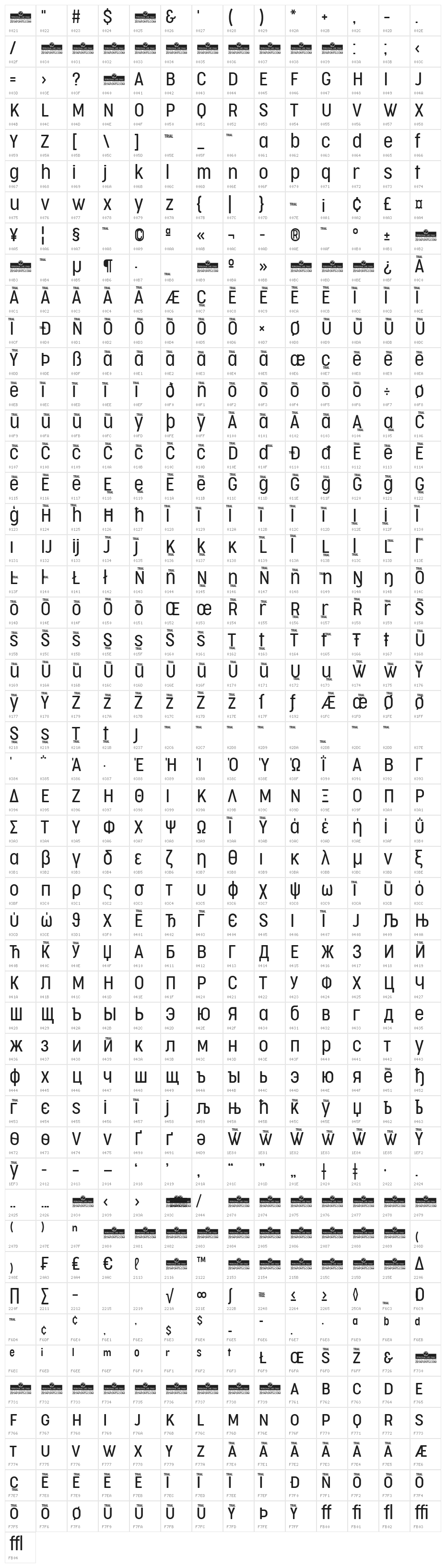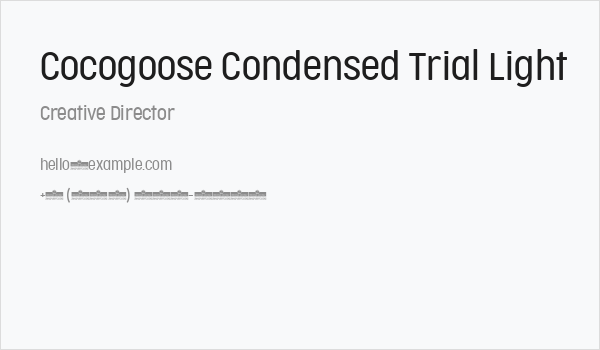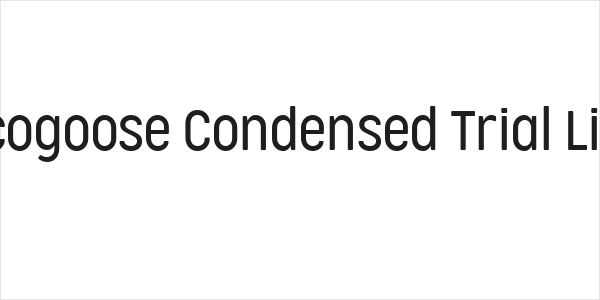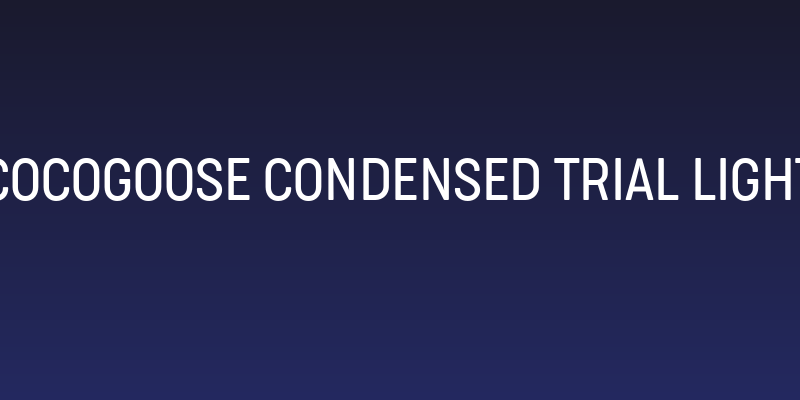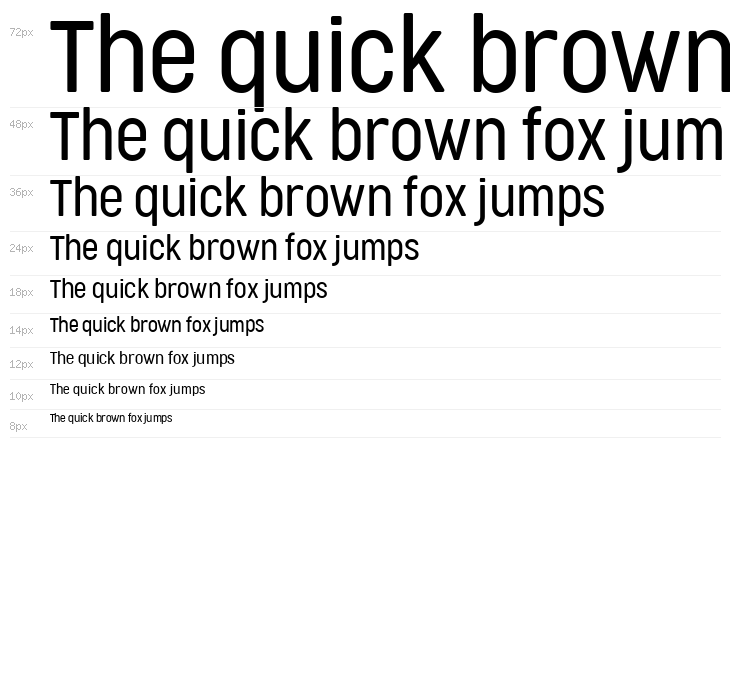
Cocogoose Condensed Trial Light Font
Cocogoose Condensed Trial Light Description
This font features a clean and modern sans-serif design with a condensed structure, making it ideal for space-saving applications. The characters are uniform in width, providing a consistent and orderly appearance. The uppercase and lowercase letters maintain a harmonious balance, while the numerals and special characters are clear and legible. The font's light weight adds an elegant touch, enhancing readability without sacrificing style. Its geometric shapes and straight lines contribute to a contemporary aesthetic, suitable for a variety of design needs.
| Proposed Projects | Ideal for branding, editorial design, web design, and advertising where space is limited but clarity is essential. |